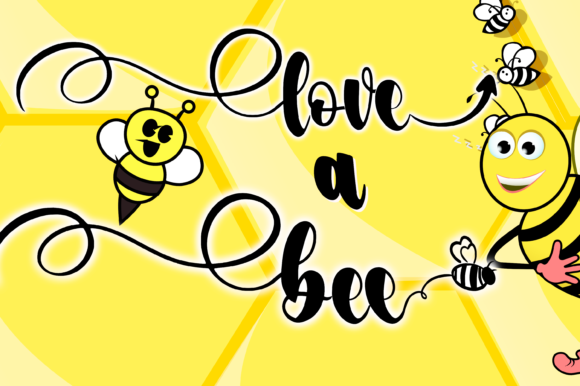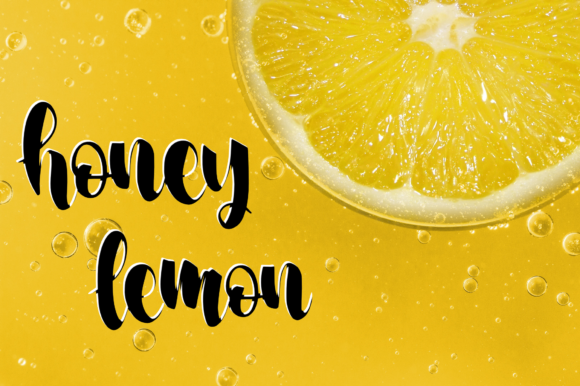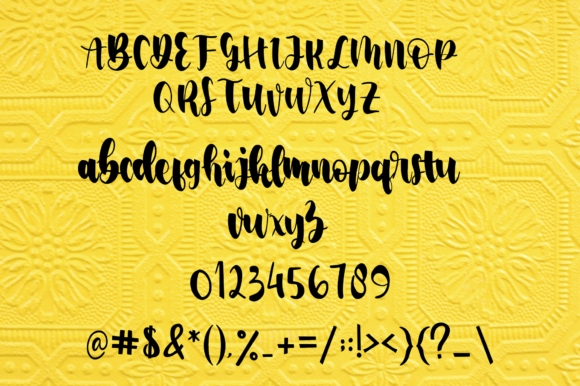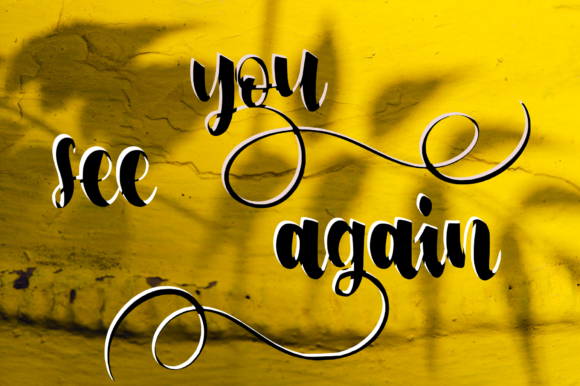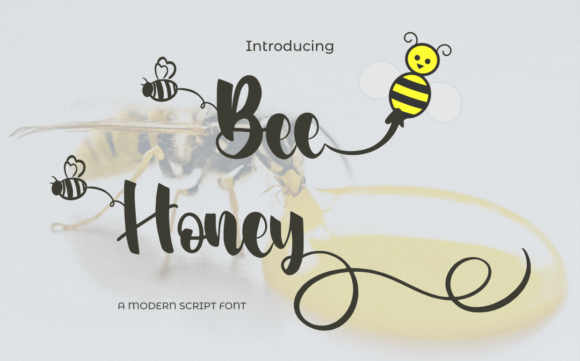
Bee Honey Font: Elevate Your Designs with Elegant and Curvy Lines
In the world of typography, a good font can make all the difference in creating a lasting impression. For designers and crafters looking to add a touch of sophistication and whimsy to their work, Bee Honey Font is an excellent choice. This superb handwritten font is designed to make your work stand out through its elegant and curvy lines, perfect for a variety of creative projects.
What is Bee Honey Font?
Bee Honey Font is a beautiful, handwritten typeface that exudes elegance and charm. Its curvy lines and fluid strokes give it a unique and distinctive look that’s sure to capture attention. The font is versatile and can be used for a wide range of applications, from product packaging and branding projects to magazine covers, social media graphics, and wedding designs.
Key Features of Bee Honey Font
- Elegant and Curvy Lines: The font’s elegant and curvy lines give it a sophisticated and refined look that’s perfect for designs that require a touch of luxury.
- Handwritten Style: The handwritten style of Bee Honey Font adds a personal and human touch to your designs, making them more relatable and engaging.
- Versatile: The font is versatile and can be used for a variety of creative projects, from product packaging to social media graphics.
- Easy to Read: Despite its elegant and curvy lines, Bee Honey Font is easy to read, making it perfect for designs that require a clear and concise message.
Uses of Bee Honey Font
Bee Honey Font is perfect for a wide range of creative projects, including:
- Product Packaging: Add a touch of elegance and sophistication to your product packaging with Bee Honey Font.
- Branding Projects: Use Bee Honey Font to create a unique and memorable brand identity that sets you apart from the competition.
- Magazine Covers: Create eye-catching magazine covers with Bee Honey Font that grab attention and draw readers in.
- Social Media: Use Bee Honey Font to create engaging and shareable social media graphics that showcase your brand’s personality.
- Wedding Designs: Add a touch of romance and whimsy to your wedding designs with Bee Honey Font.
Why Choose Bee Honey Font?
With so many fonts available, why choose Bee Honey Font? Here are just a few reasons:
- Unique and Distinctive: Bee Honey Font is a unique and distinctive font that will set your designs apart from the competition.
- Elegant and Sophisticated: The font’s elegant and curvy lines give it a sophisticated and refined look that’s perfect for designs that require a touch of luxury.
Bee Honey Font is a superb handwritten font that will make your work stand out through its elegant and curvy lines. With its versatile design, easy-to-read style, and range of uses, it’s perfect for designers and crafters looking to add a touch of sophistication and whimsy to their work. Whether you’re working on a product packaging design, branding project, magazine cover, social media graphic, or wedding design, Bee Honey Font is an excellent choice.